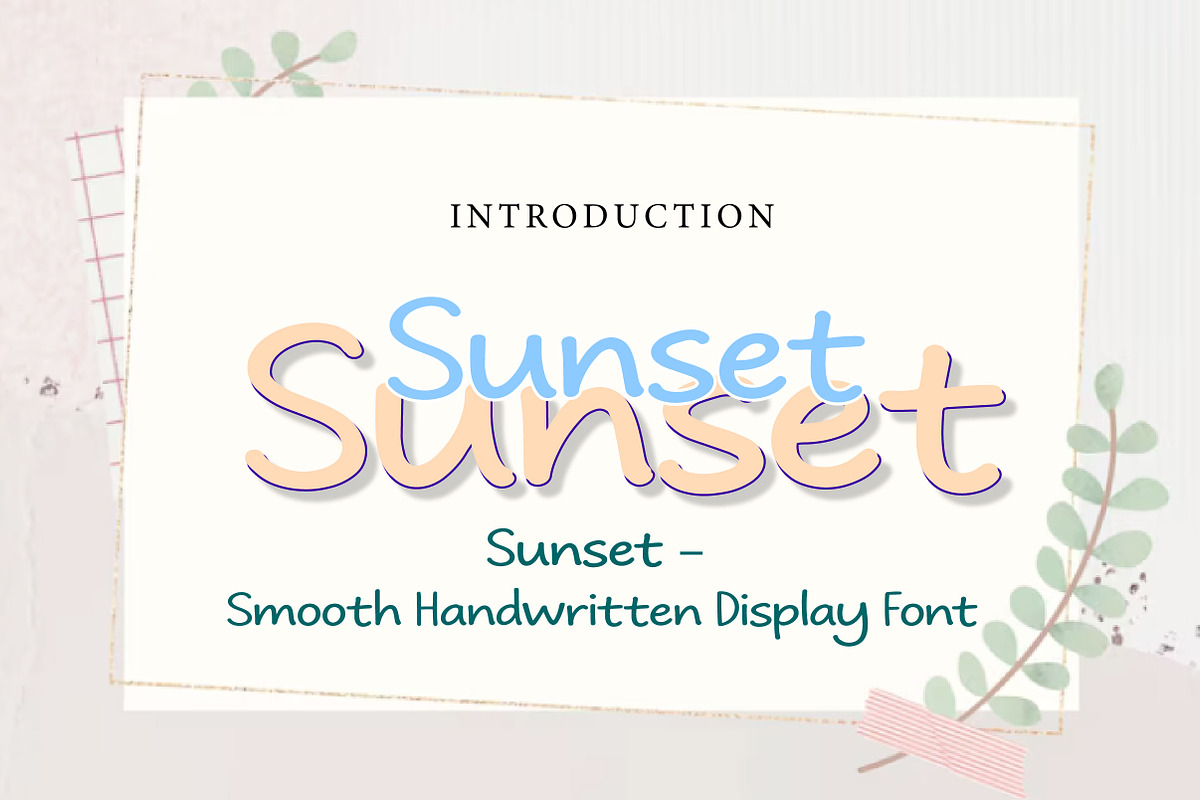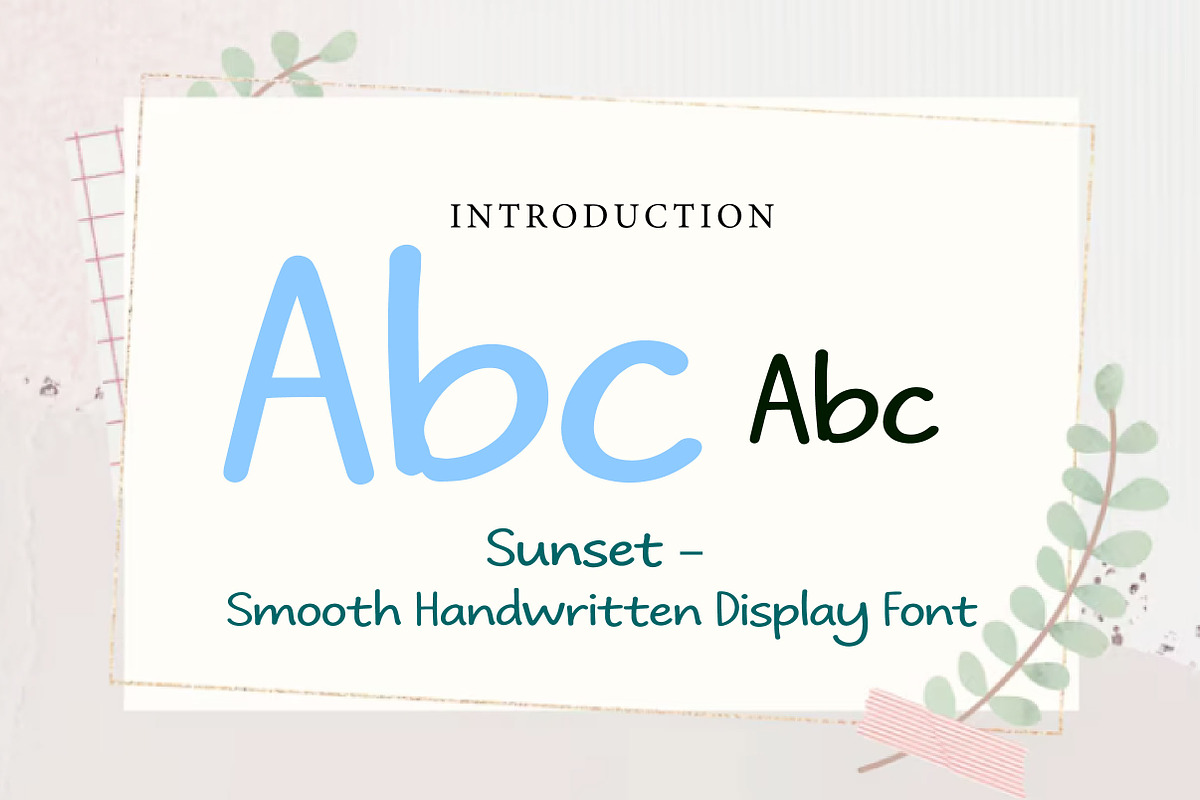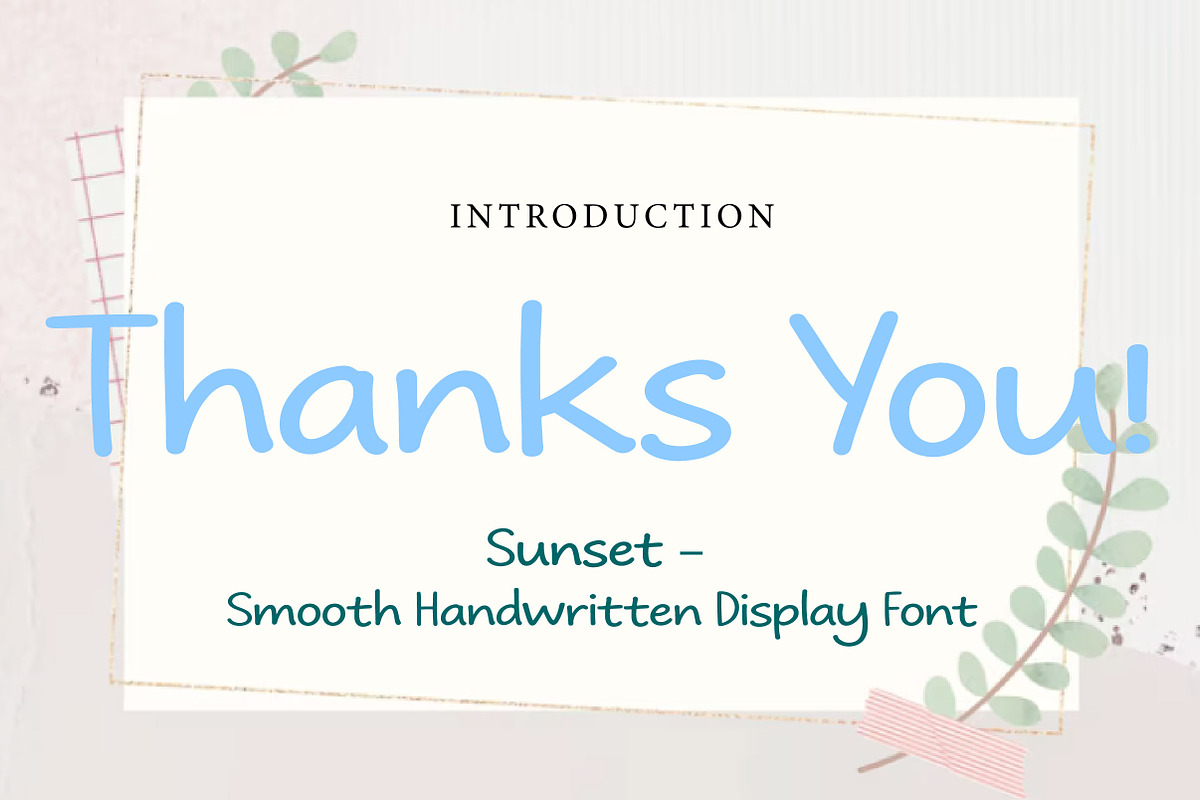
Sunset
Sunset – Smooth Handwritten Display Font
Sunset is a smooth, friendly, and casual handwritten display font, perfect for branding, social media, packaging, quotes, and modern creative projects.
Sunset is a soft and stylish handwritten display font designed to bring warmth, simplicity, and personality to your designs. With its smooth curves, rounded strokes, and natural flow, this font creates a clean and approachable look that feels both modern and charming.
Its casual handwritten style makes Sunset a versatile choice for a wide range of creative projects. Whether you are designing branding materials, social media graphics, product packaging, greeting cards, quotes, posters, or website headers, this font helps your text feel more personal, relaxed, and memorable.
The balanced letterforms keep your typography easy to read while adding a friendly handcrafted touch. Suitable for both digital and print use, Sunset is perfect for designers who want a font that feels warm, modern, and effortlessly appealing.